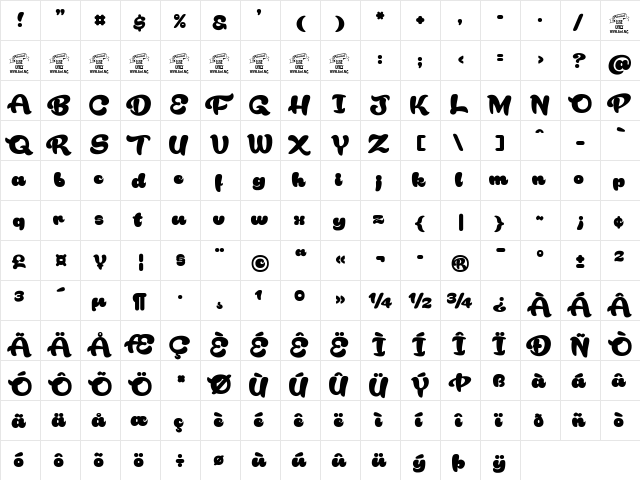
Rakoon Personal Use Regular
Design Context for Rakoon Personal Use Typeface
Rakoon Personal Use is a composed and adaptable typeface that performs quietly and consistently across a wide range of design contexts.